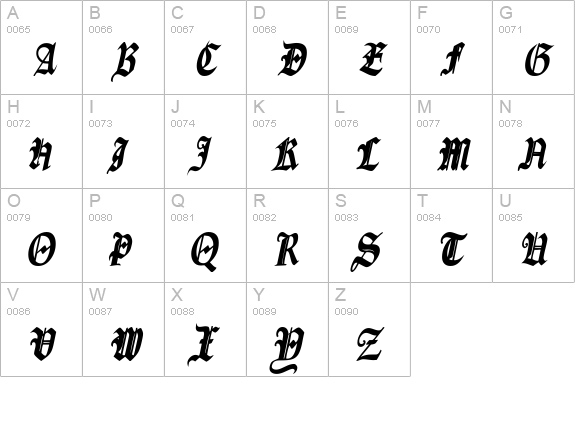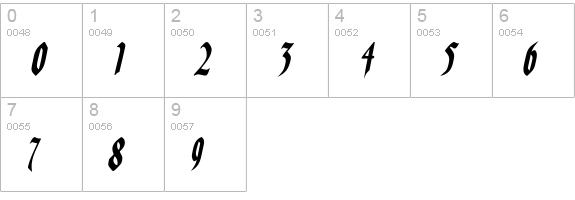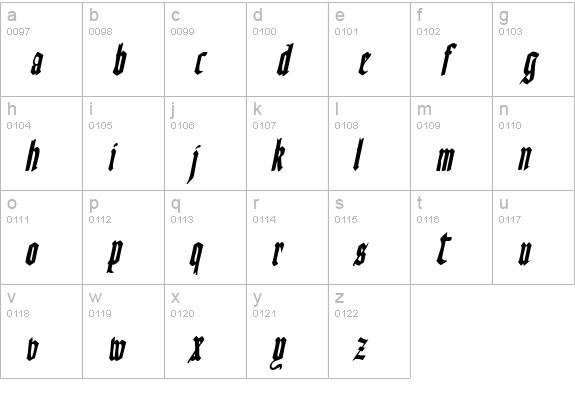
Fains Bold Italic is a strong, high-contrast, italic variant in the Fains typeface family \xE2\x80\x94 well suited to headlines, attention-grabbing titles, and strong calls-to-action.
Fains Bold Italic font is a striking and modern typeface that exudes confidence and sophistication. With its bold strokes and elegant italics, this font is perfect for making a statement in any design project. The Fains Bold Italic font is versatile and can be used for a wide range of applications, from branding to editorial design. What sets this font apart is that it is available for free download at FontsMarket.com. This means that you can easily access and use this high-quality font in your projects without any cost. Whether you're a professional designer or a hobbyist, Fains Bold Italic font offers a premium look and feel without the premium price tag. Download it today and elevate your designs with this stylish and eye-catching font.